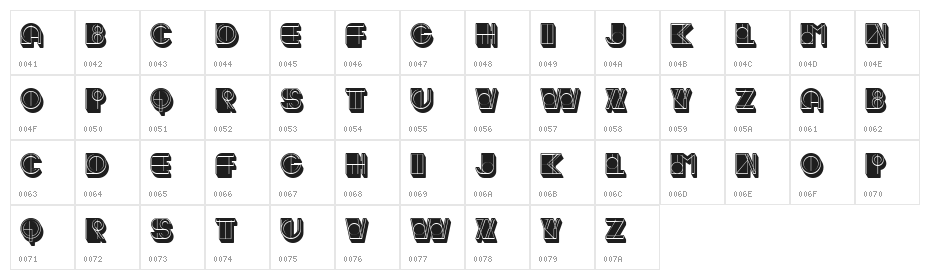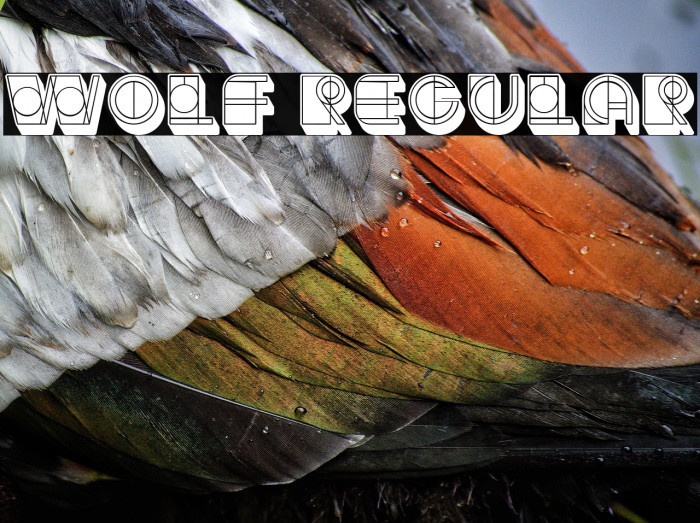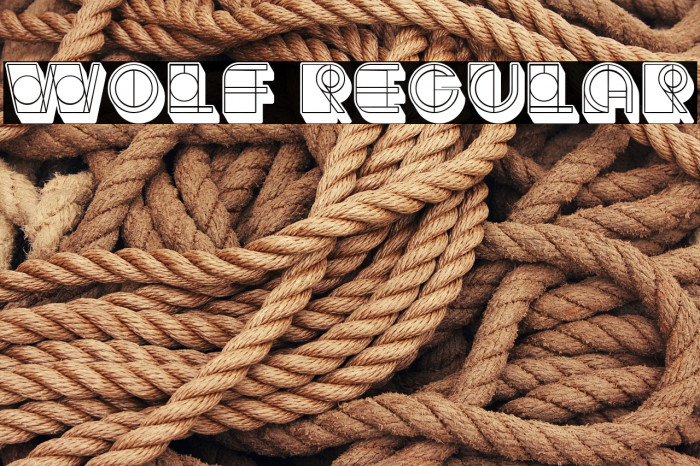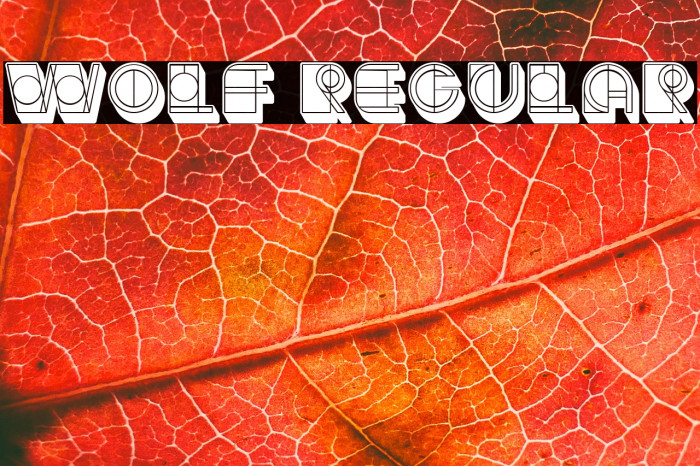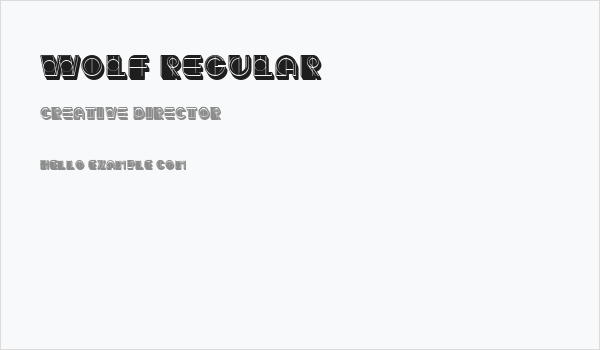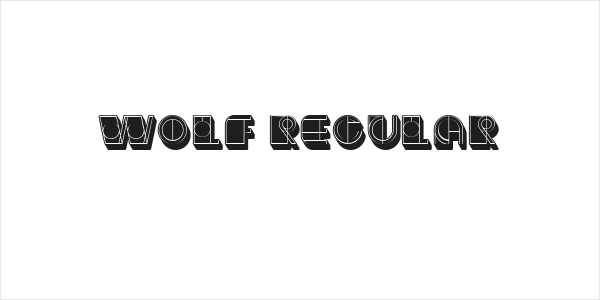
Wolf Regular Font
Wolf Regular Description
This font features a bold, geometric design with a three-dimensional effect created by overlapping lines and shapes. Each character is constructed with a combination of solid and outlined segments, giving it a unique, layered appearance. The uppercase letters are particularly striking, with their intricate patterns and bold outlines. The font's style is modern and eye-catching, making it suitable for projects that require a strong visual impact. Its distinct design elements make it stand out, while maintaining readability. The font is versatile, offering a creative twist on traditional letterforms.
| Proposed Projects | Ideal for branding, posters, headlines, and any design requiring a modern, impactful look. |